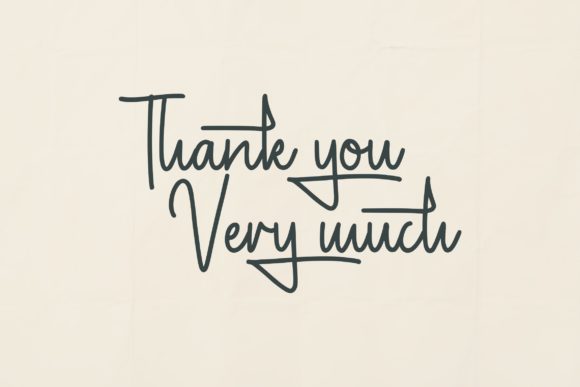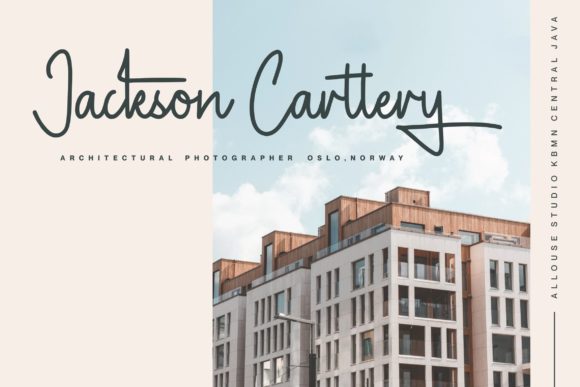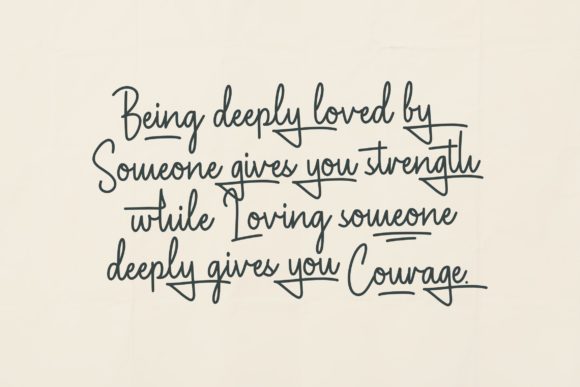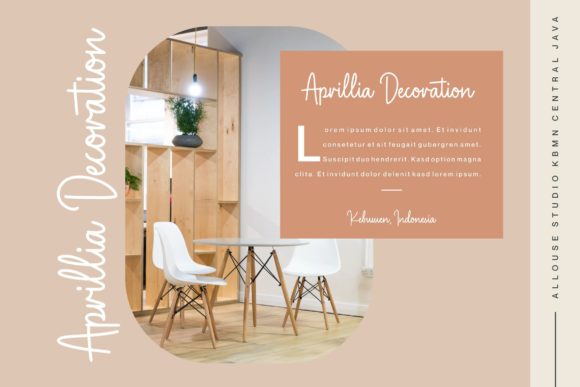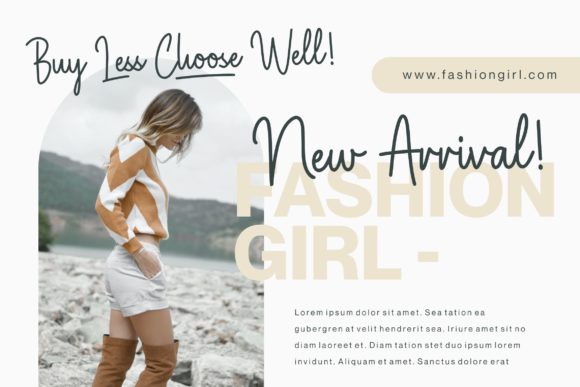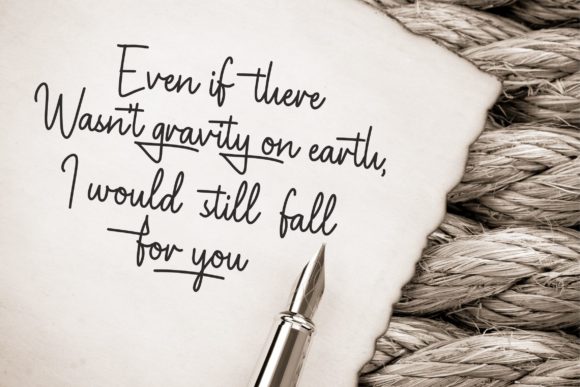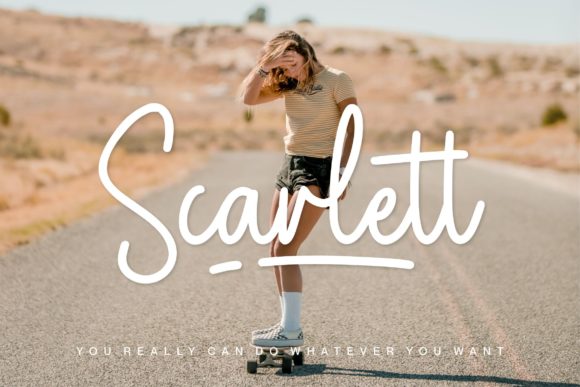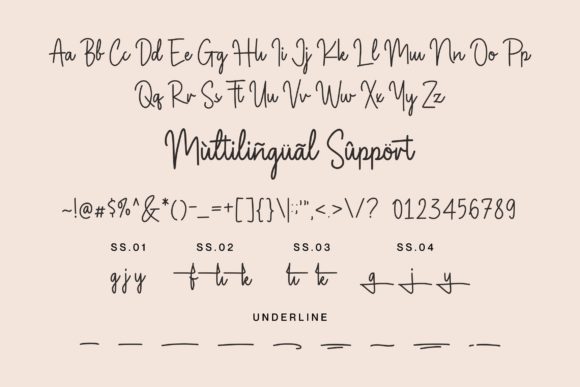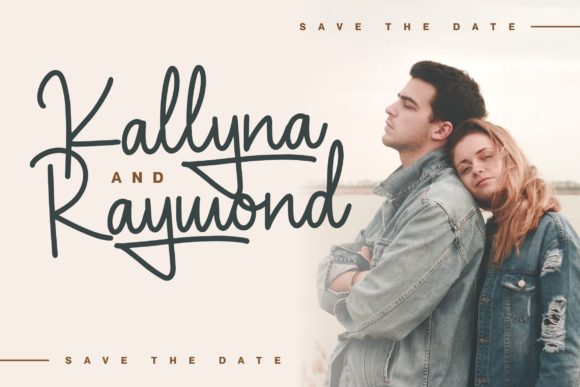
Magnolia Sparkling Font
About Magnolia Sparkling Font
Magnolia SparklingĀ is a chic, refined script font that emanates sophistication and elegance. Its stylish alternates and ligatures make this font the perfect match for any project.